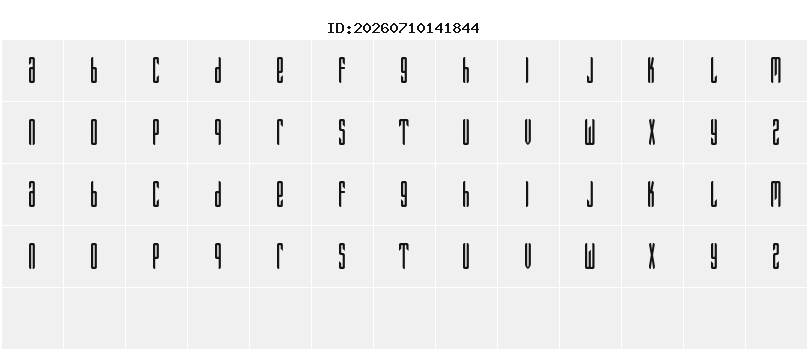
Fantazija Preview
• Font Name: Fantazija
• Full Font Name: Fantazija
• PostScript Name: Fantazija
About Fantazija.ttf
Fantazija.ttf is a modern, elegant sans-serif font designed for ultimate readability and visual harmony. Perfect for branding, headlines, web design, and print materials.